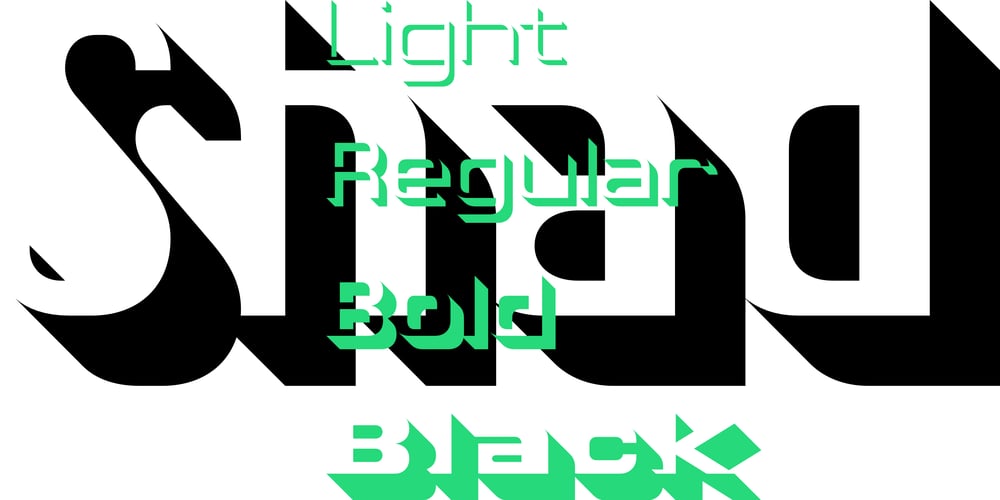
Shad
Shad font
Shad Font Family was designed by Ingo Zimmermann and published by Ingo. Shad contains 24 styles and family package options. The Shad is the almost illegible cousin of the >> Chiq. As the name suggests – it consists of the shadows of the letters. And the bolder the font style, the stronger it is. The “Light” only has a thin shadow, while the “Black” casts a very deep, broad shadow.Shad only consists of the letter shadows, the corresponding letter remains transparent, i.e. without filling. The “metrics”, i.e. the spacing and character widths, correspond to those of Chiq, so that both fonts can be placed congruently on top of each other.When you combine and play with the two fonts, very attractive effects quickly emerge. Shad brings a bit of 3D into typography.